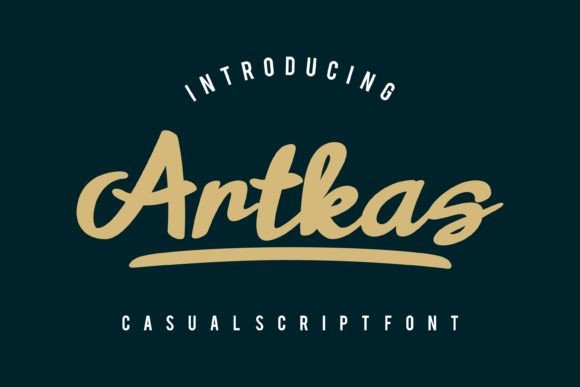
Journey into the world of Artkas, a captivating script font that dances across your screens with grace and allure. Its bold strokes leave a trail of elegance, while its casual flair injects a breath of fresh air into your designs. With Artkas, you hold the key to unlocking creativity and leaving an indelible mark on your audience.
Crafted with passion by lelevien, Artkas embodies the spirit of contemporary calligraphy, fusing classic influences with a modern twist. Its timeless aesthetic transcends trends, making it the perfect choice for those seeking a font that stands the test of time.
Indulge in the versatility of Artkas, a font that effortlessly adapts to a myriad of projects. Its bold presence commands attention in logos and branding, while its playful charm adds a touch of whimsy to invitations and social media graphics. Whether you're crafting wedding invitations, designing posters, or creating eye-catching headlines, Artkas will elevate your designs to new heights.
Immerse yourself in the world of Artkas, where creativity knows no bounds. Embrace its bold strokes and elegant curves as you bring your projects to life. Elevate your designs, captivate your audience, and leave a lasting impression with every stroke of this magnificent script font.